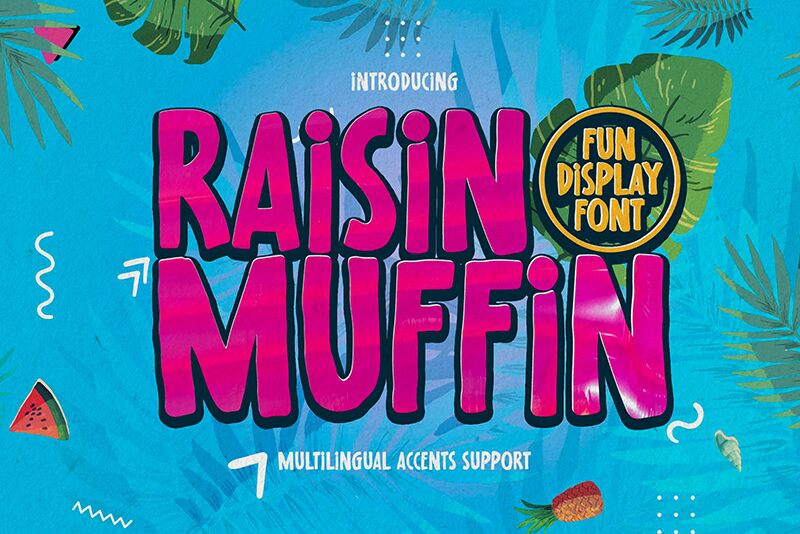
Raisin Muffin
Raisin Muffin springs to life with its playful cartoon style, embodying a blend of modern flair and dramatic movement. Its bold, semi-condensed weight crafted by Gassstype imbues every word with a distinct presence that's hard to overlook. This display font dances across the page, exuding a casual yet purposeful energy that captures the essence of quick, hand-written notes.
Designed for versatility, Raisin Muffin is an ideal choice for a spectrum of creative endeavors. Whether it's gracing labels with an authentic touch or adding character to posters and branding projects, this font ensures your designs stand out with a unique and natural texture. Its suitability extends to packaging, greeting cards, websites, and photography overlays-anywhere that calls for an injection of fun and originality. Dive into a world where type meets play; let Raisin Muffin transform your creative projects into works of engaging artistry.